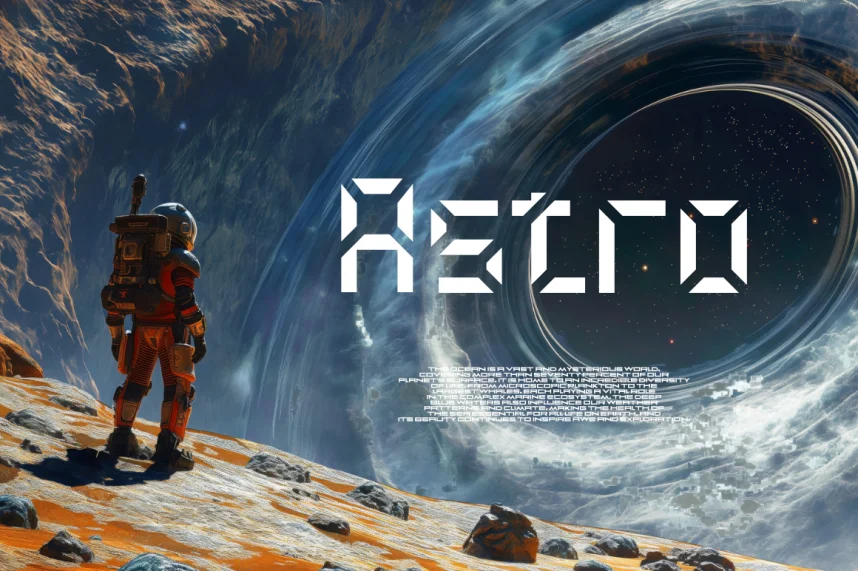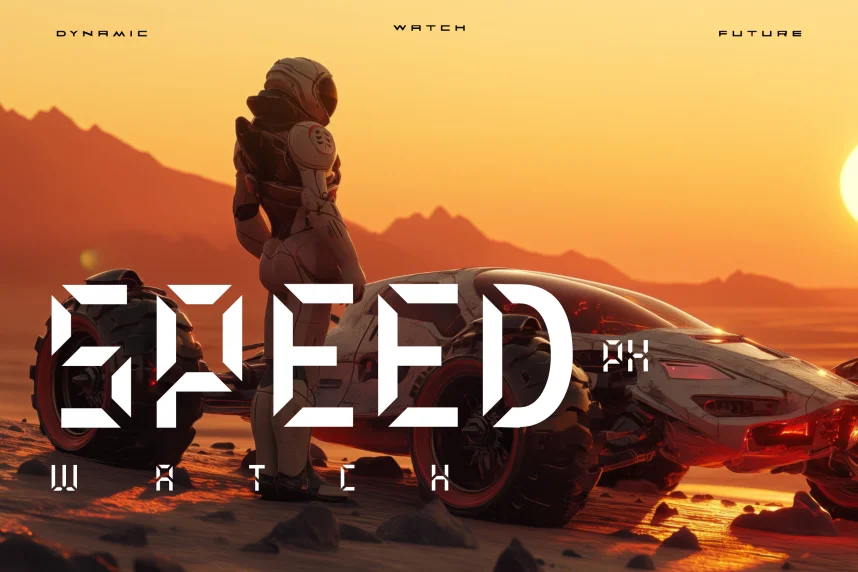
Speed Px Watch Font is a display typeface tailored for digital and analog watch interfaces, dashboards, and technical branding. It addresses readability in small-scale or high-contrast designs.
The font features precise, condensed letterforms with uniform stroke widths, sharp terminals, and clear counters. Its numeric and alphanumeric characters are optimized for legibility under tight spacing conditions. The typeface conveys a technical, minimal, and modern aesthetic.